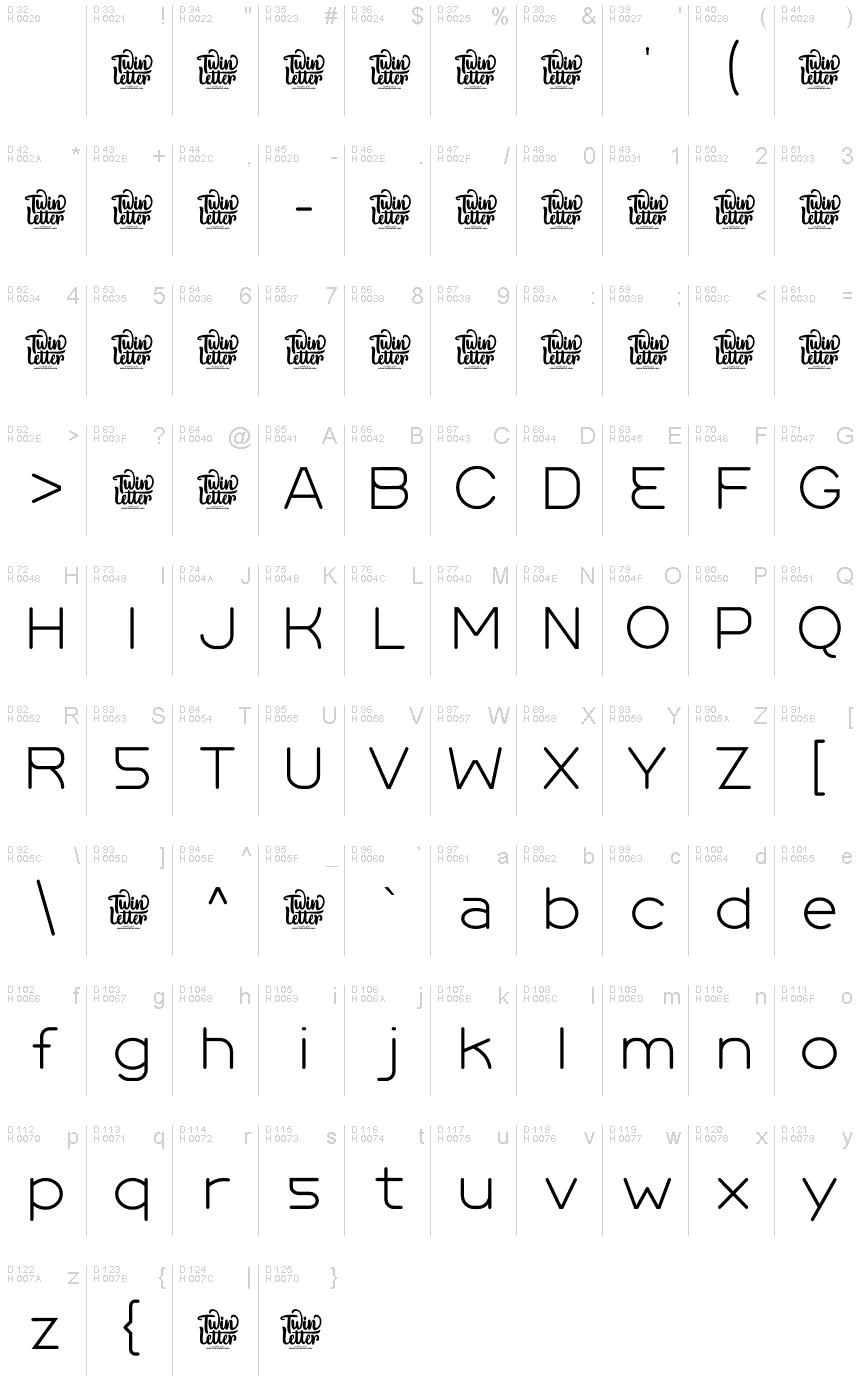
REBOG Thin Personal Use
REBOG Thin, designed by twinletter, is a stunning sans-serif typeface with a light weight and semi-expanded width. This versatile font is ideal for projects that require a sleek and modern aesthetic such as minimalist branding, editorial design, web design, and much more. Its clean lines and elegant curves make it perfect for any application that demands clarity and sophistication. Whether you're looking to create an eye-catching logo or a clean editorial layout, REBOG Thin has got you covered with its minimalist yet distinctive style. Elevate your designs to the next level with the REBOG family of fonts!